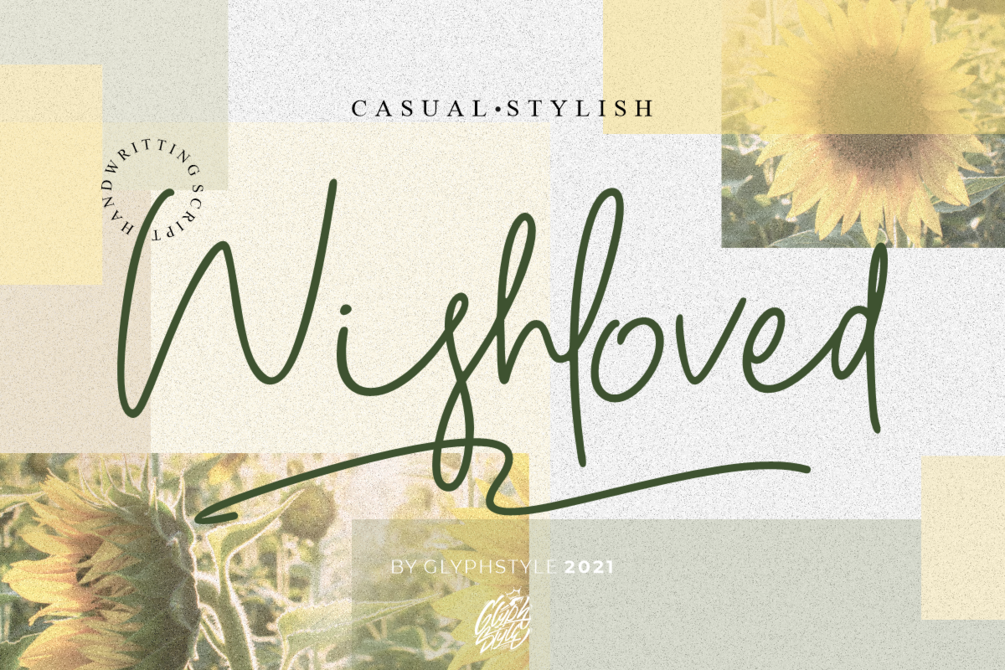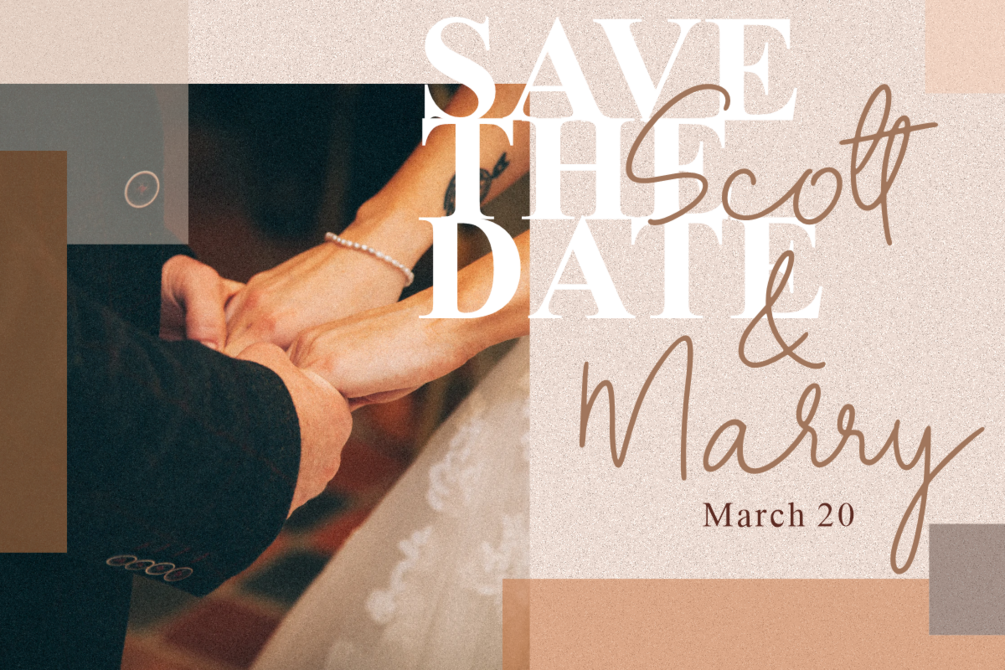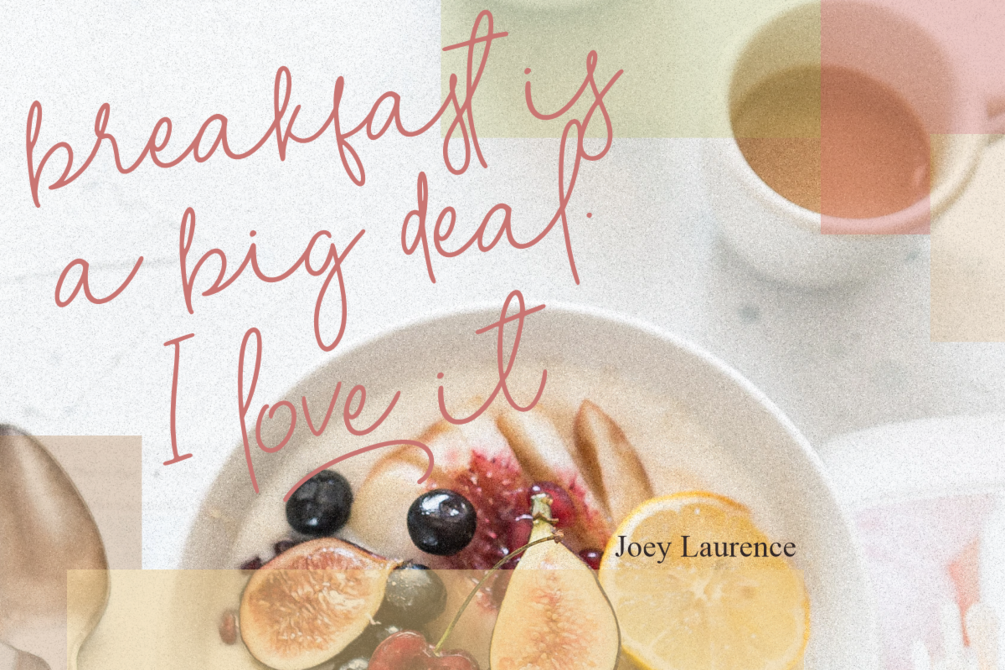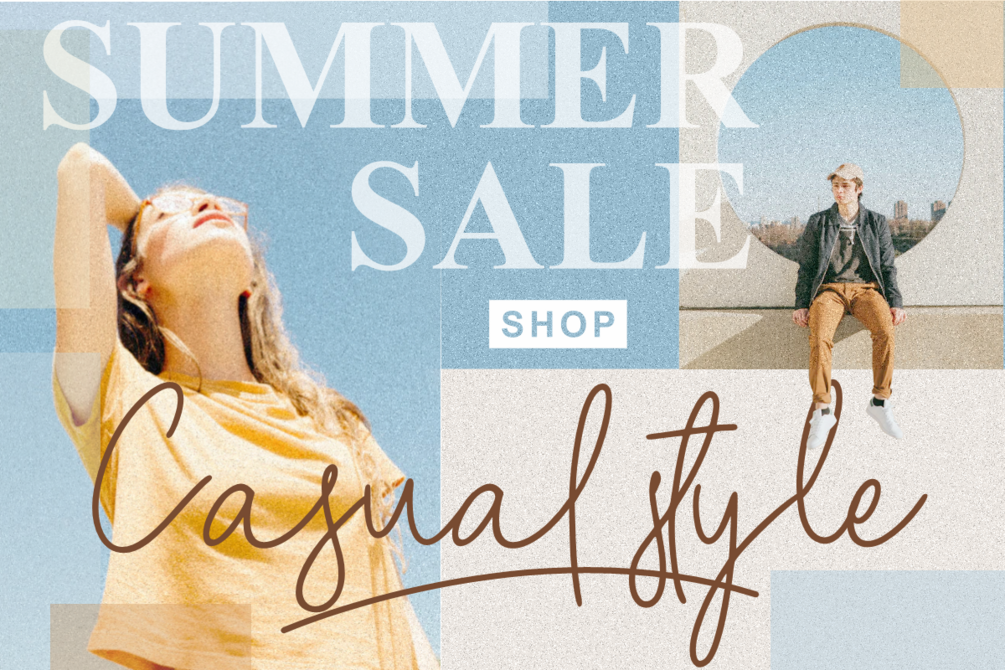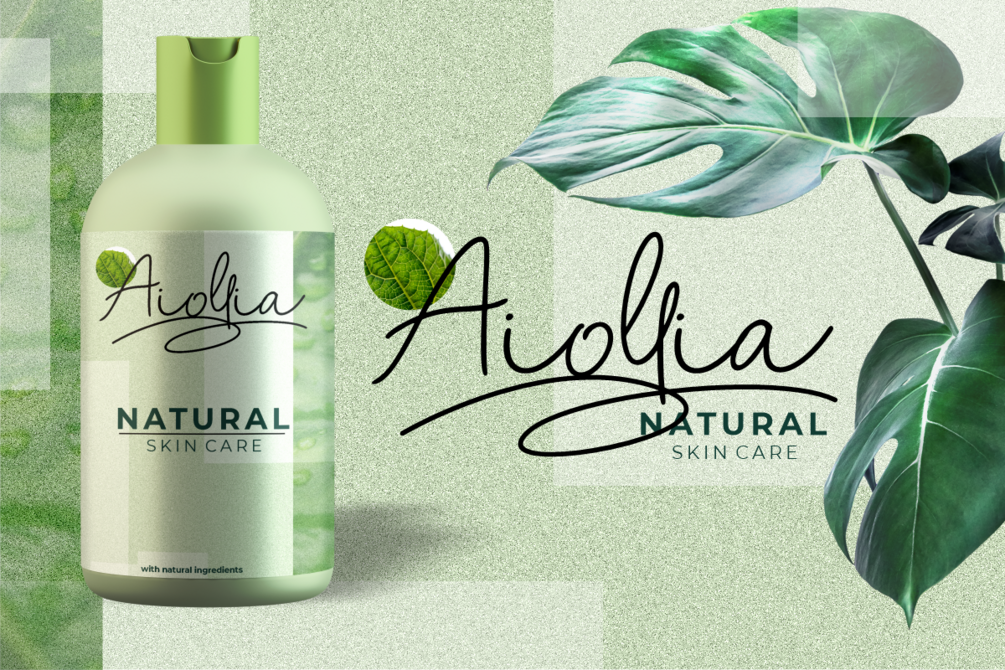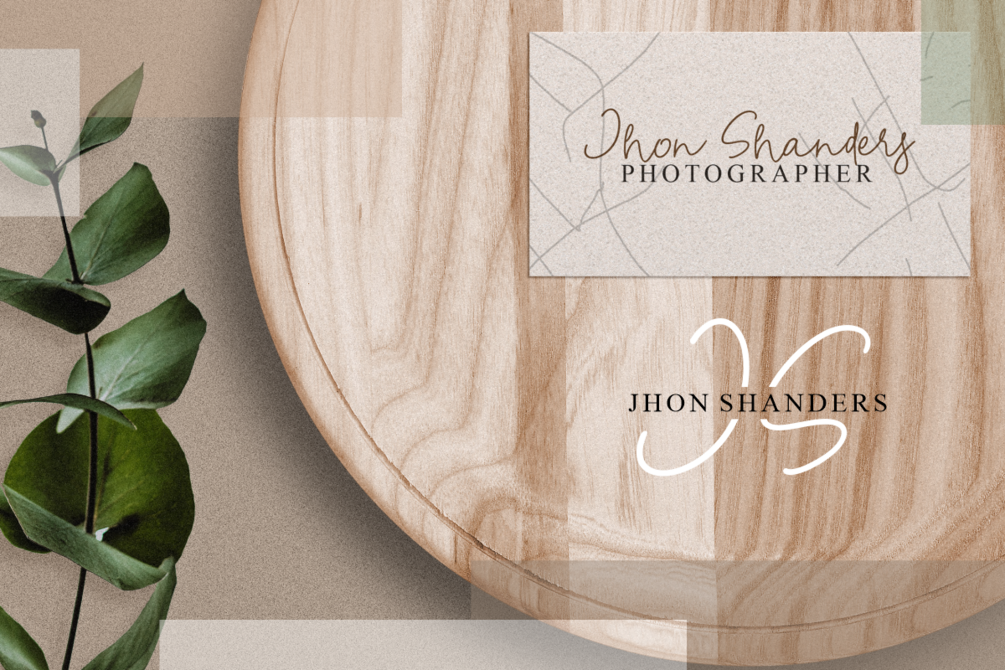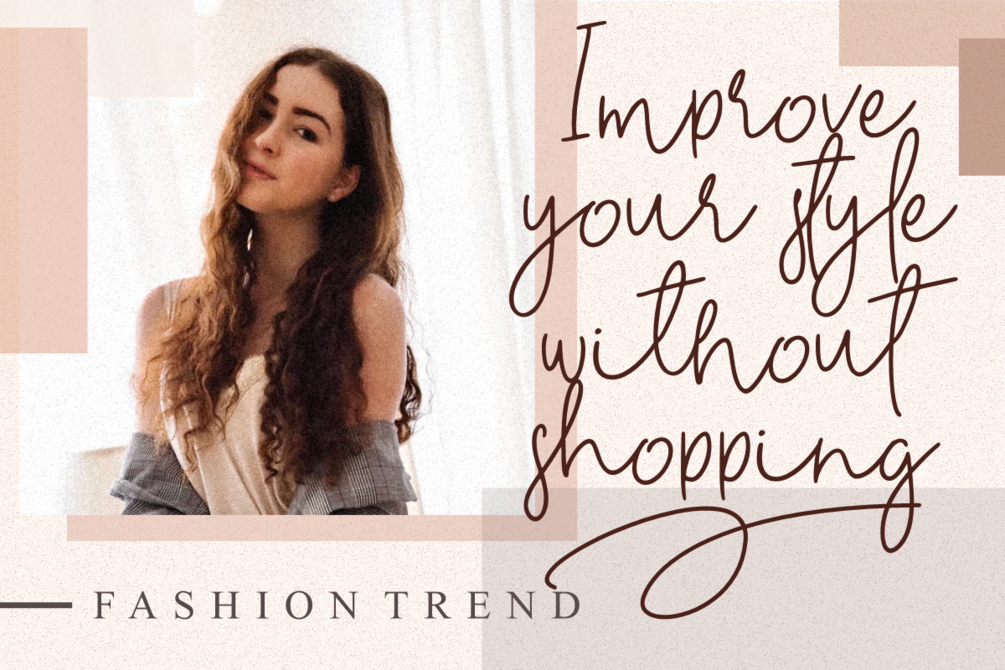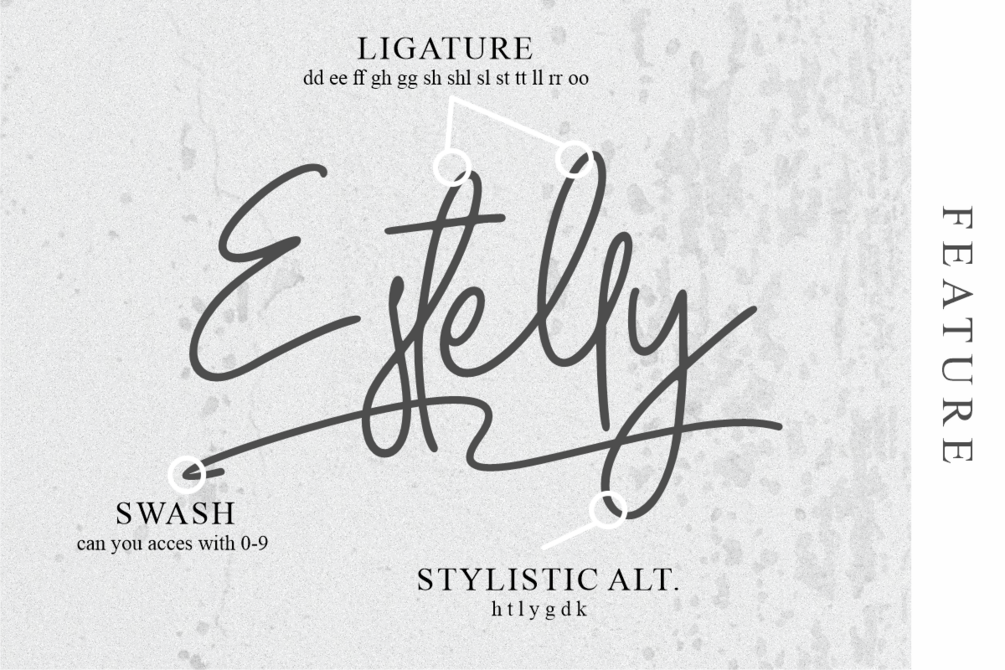
Wishloved Handwritten Script
Wishloved is a casual stylish handwritten font, a beautiful writing font with natural line movements that make it pretty and elegant.
Wishloved is perfect for branding projects, logos, wedding designs, social media posts, advertisements, product packaging, product designs, labels, photography, watermarks, invitations, stationery, and any project that requires a sense of Handwritten typeface.
- Lowercase, Uppercase, Numbers & Punctuation, Ligature, Stylistic Alternate, Swash variants